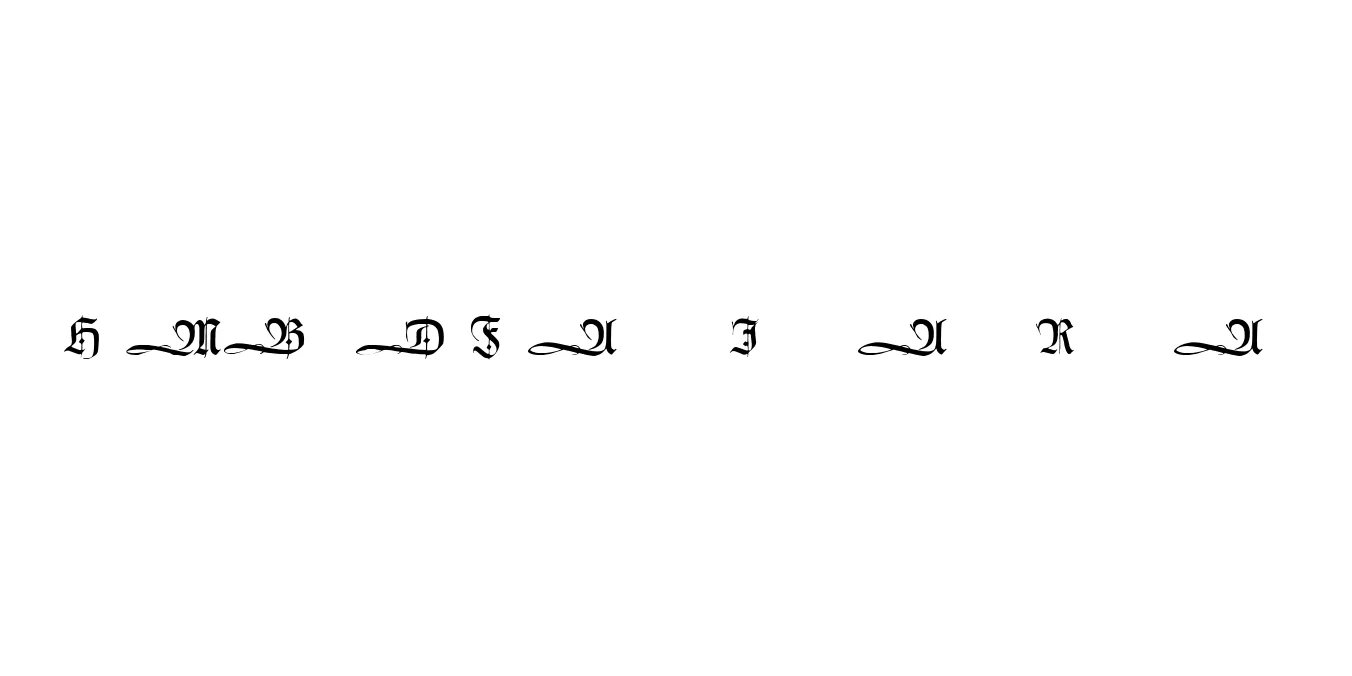
HumboldtFraktur Initialen Regular
Designed by Hiero Rhode
HumboldtFraktur Initialen Regular is a specialized decorative typeface designed to complement the Humboldt-Fraktur family, originally created by Hiero Rhode in 1938 for the D. Stempel AG type foundry. This font embodies the transition between traditional German blackletter and the modernist design influences of the early 20th century. The characters are intricately crafted, featuring heavy strokes and ornate flourishes that reflect a deep historical heritage.
These ornamental initials serve as powerful visual anchors in graphic design, particularly for projects requiring a sense of authority or antiquity. Often used as drop caps, they excel in editorial layouts and high-end publishing. The font's aesthetic is characterized by its sharp angles and dramatic contrast, making it a staple for designers looking to recreate the look of vintage European manuscripts or early twentieth-century print media.
HumboldtFraktur Initialen Regular Best Uses
Using large decorative initials for starting chapters or articles.
Creating a historical or heritage-focused brand identity.
Designing eye-catching covers for historical fiction or classical literature.
Adding a sense of tradition and formality to gala or wedding stationery.
Suitable for large-scale headers where decorative detail is paramount.